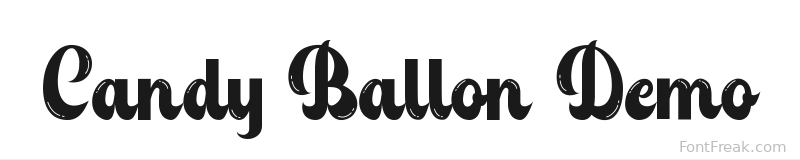
Candy Ballon Demo
About Candy Ballon Demo
The Candy Ballon Demo font by Noah Type is a charming display typeface that captures the essence of whimsy and joy. As a decorative font, it features playful curves and delightful flourishes that are reminiscent of candy and balloons, making it an ideal choice for projects that aim to evoke feelings of happiness and nostalgia. The strokes are bold yet rounded, with a consistent weight that ensures visibility and impact, while the generous spacing between letters maintains clarity, even at larger sizes.
This font is particularly well-suited for a variety of applications. Graphic designers can leverage its cheerful aesthetic for creating eye-catching wedding invitations that convey a sense of festivity. Its playful nature also makes it a fantastic choice for designing vibrant children’s party invitations and birthday cards. Additionally, small business owners in the confectionery or event planning sectors can use the Candy Ballon Demo font to enhance their branding, such as on restaurant menus or promotional materials. Content creators looking to add a touch of whimsy to their social media graphics or blog headers will find this font equally captivating.
Targeting graphic designers, small business owners, and content creators, the Candy Ballon Demo font free download offers an accessible way to infuse creativity into various design projects. Its distinctive style stands out in a sea of standard fonts, making it memorable and engaging. Whether you’re looking to create something light-hearted or simply want to add a unique flair to your designs, this font’s playful characteristics and versatility make it an excellent choice for anyone seeking to capture attention and convey a sense of joy.